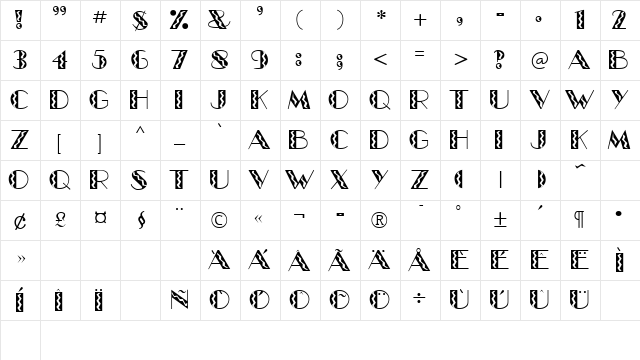
GlitzyFlash Regular Free Font
GlitzyFlash Regular
GlitzyFlash Family
GlitzyFlash Regular
Design Context for GlitzyFlash
GlitzyFlash is a composed and adaptable typeface that performs quietly and consistently across a wide range of design contexts.